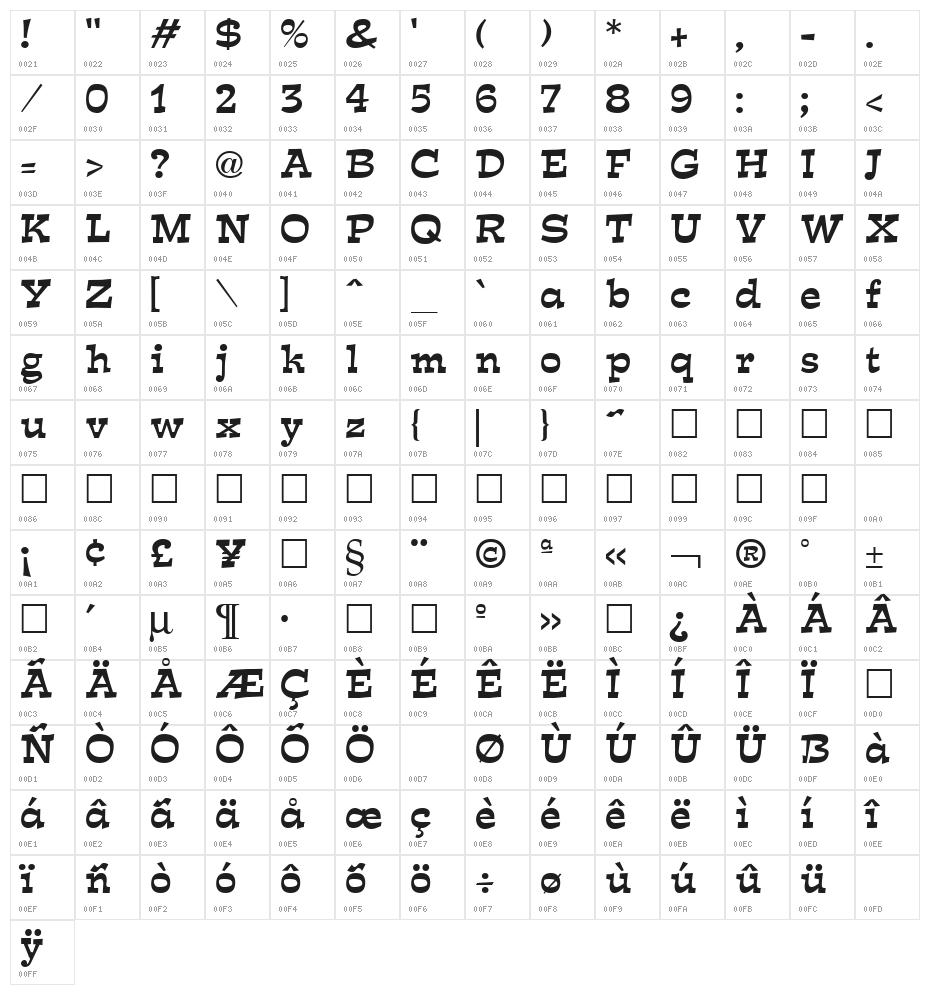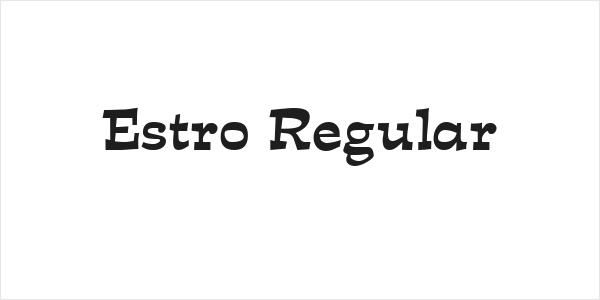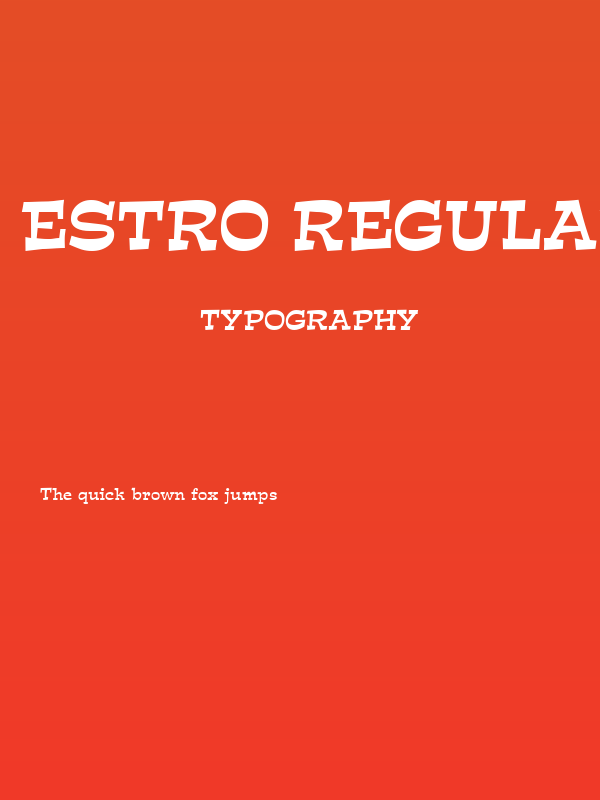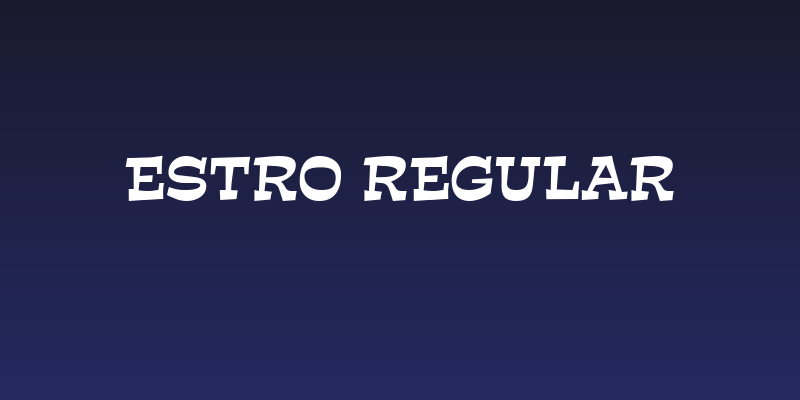
Estro Regular Font
Estro Regular Description
This font features a bold and playful design with a distinctive slant that adds a dynamic feel to the characters. The uppercase letters are robust and slightly condensed, giving them a strong presence. The lowercase letters maintain a consistent style, with rounded edges and a slight tilt that enhances the font's whimsical nature. Numbers are bold and clear, ensuring readability. Special characters are designed to match the overall aesthetic, providing a cohesive look across all elements. This font's unique style makes it stand out, offering a blend of modern and playful characteristics.
| Width | Condensed |
| Overall Style | Playful, Modern |
| Proposed Projects | Ideal for children's books, playful branding, posters, and creative projects that require a fun and engaging typeface. |